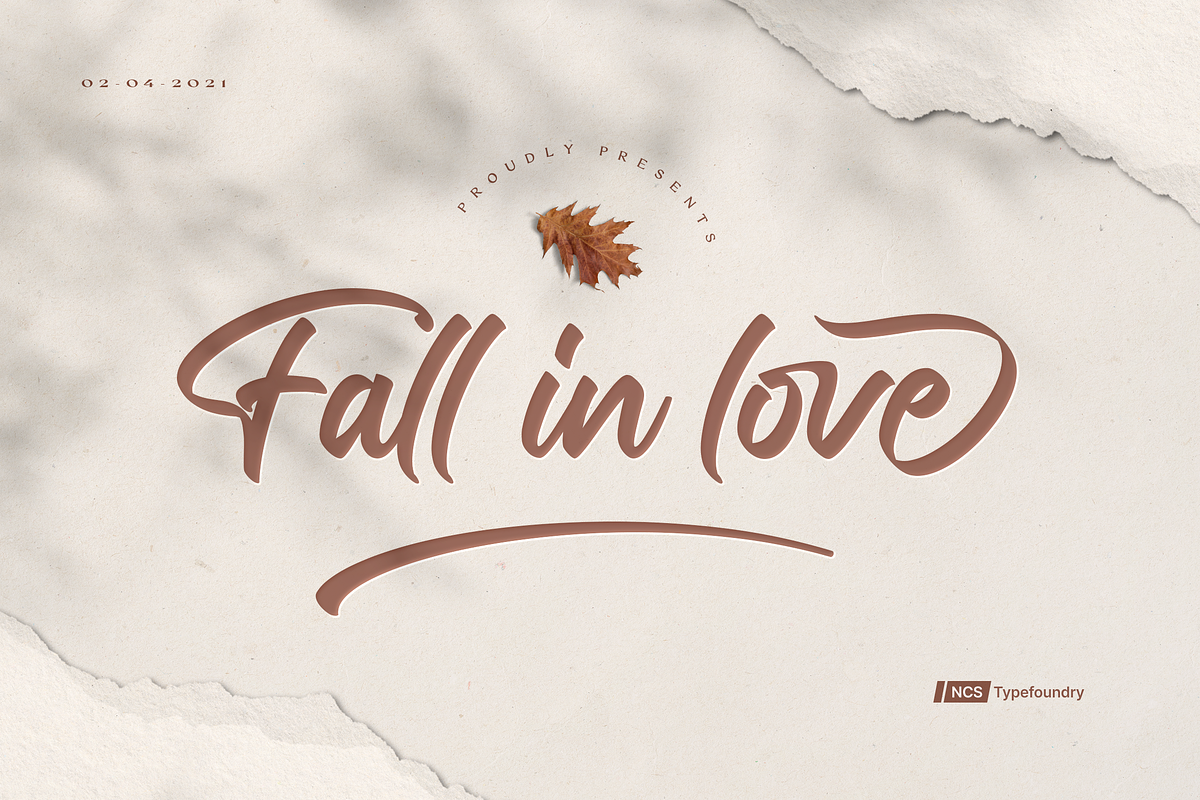
Fall in Love Font Free Download is a romantic and elegant handwritten script typeface that captures the beauty of love in every curve. With its flowing, graceful letterforms, this font is perfect for wedding invitations, love letters, branding, social media graphics, and any design that requires a soft, heartfelt touch.
Whether you're creating for a romantic event, personal project, or designing for a love-themed brand, Fall in Love Font Free Download adds a delicate, beautiful vibe to your typography. Its handwritten quality gives your work a personal and genuine feel, making it ideal for both digital and print designs.